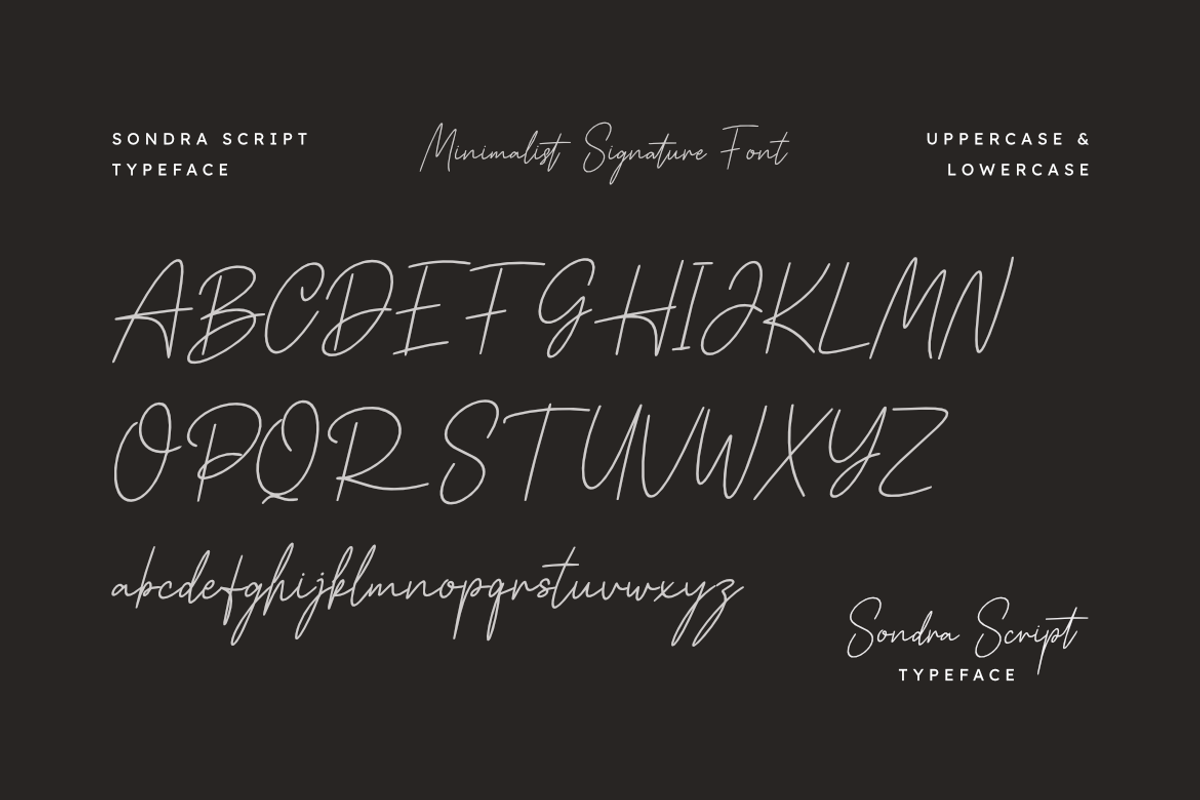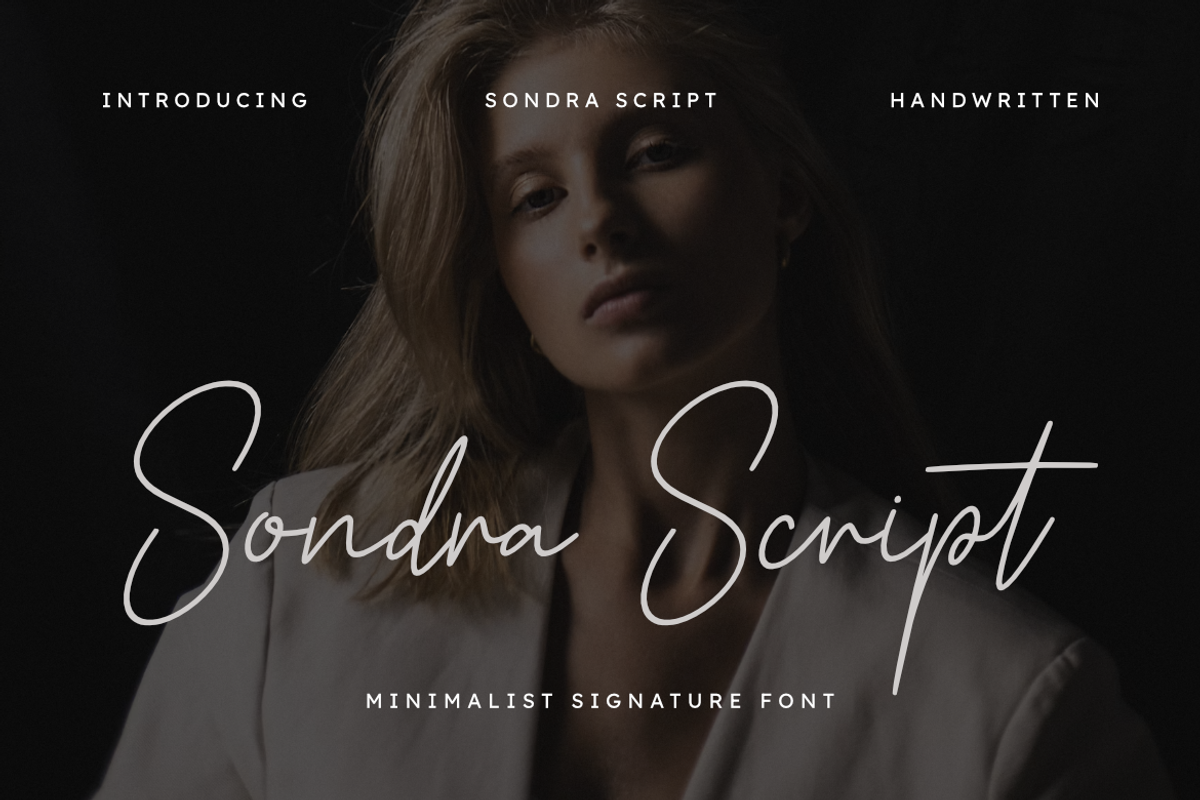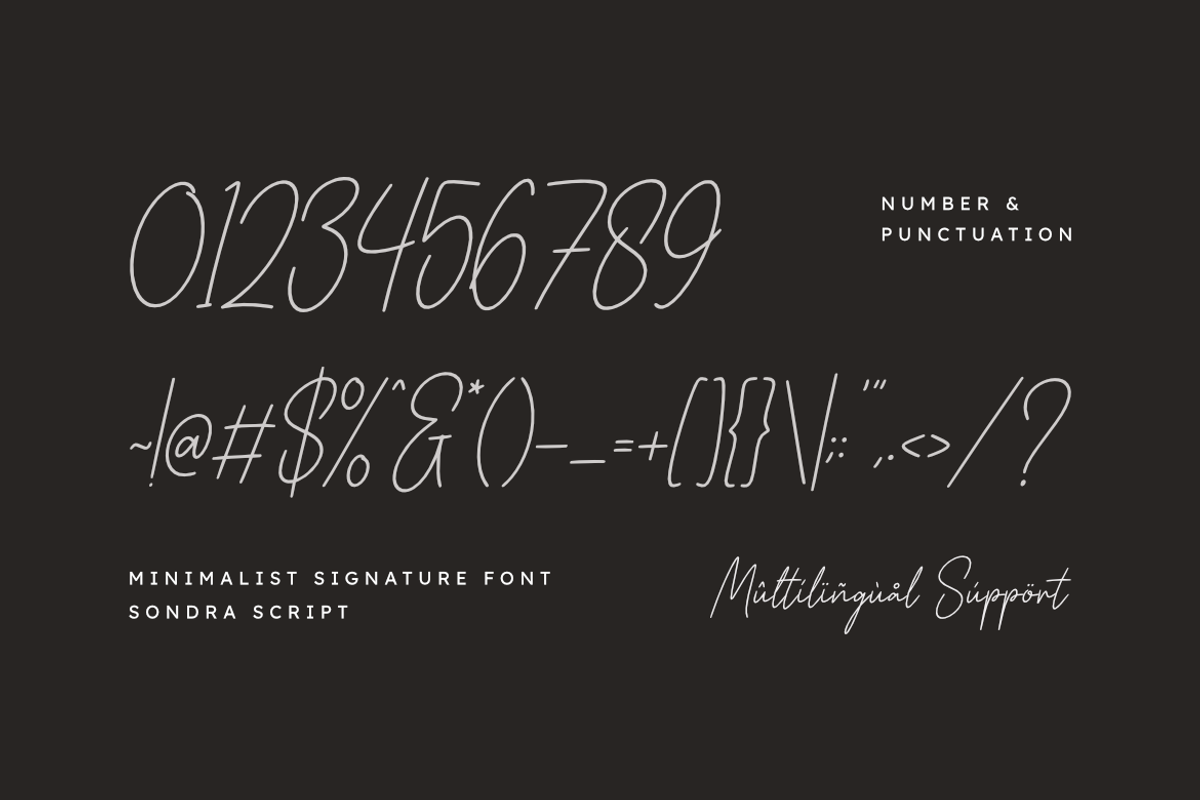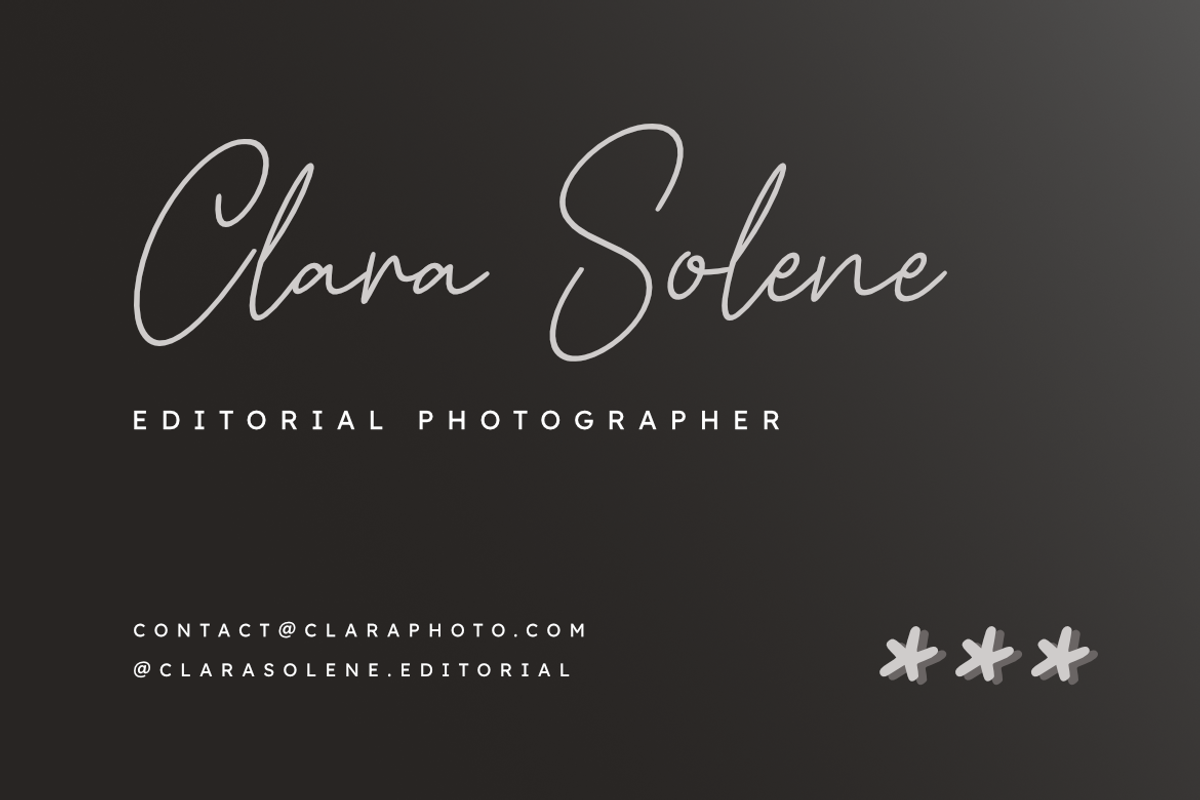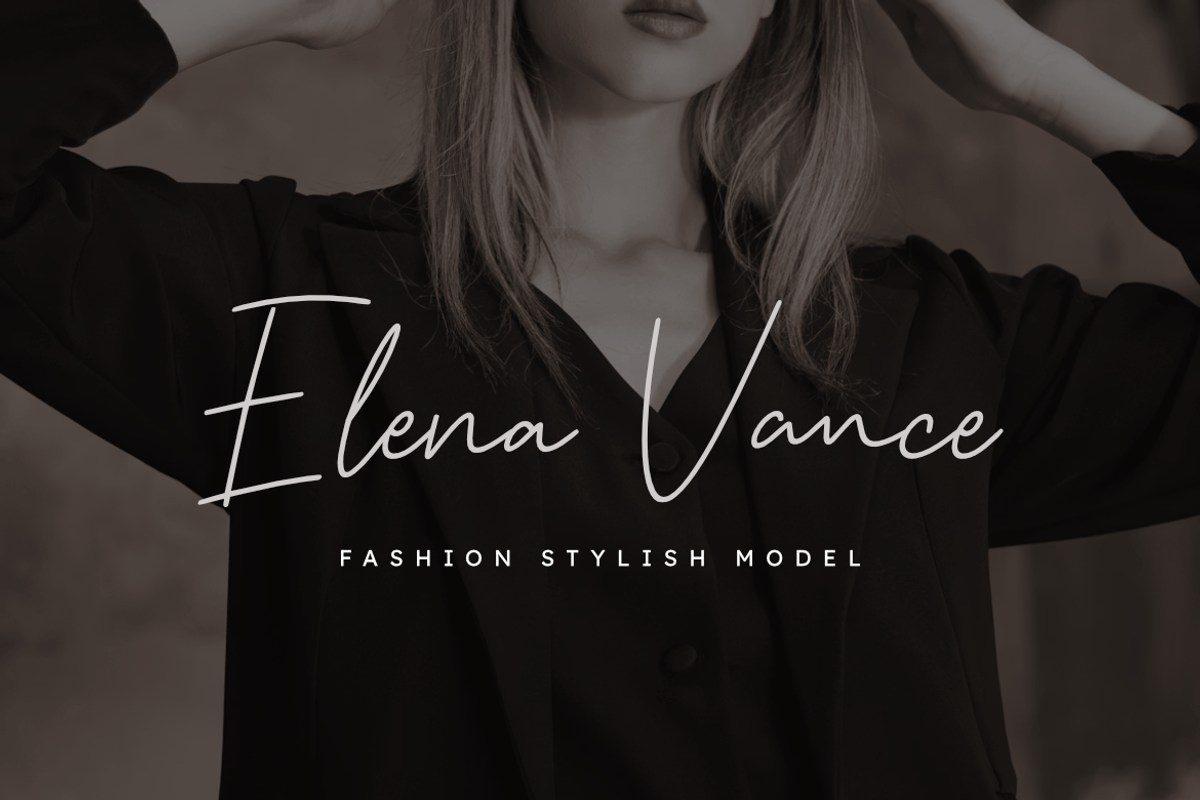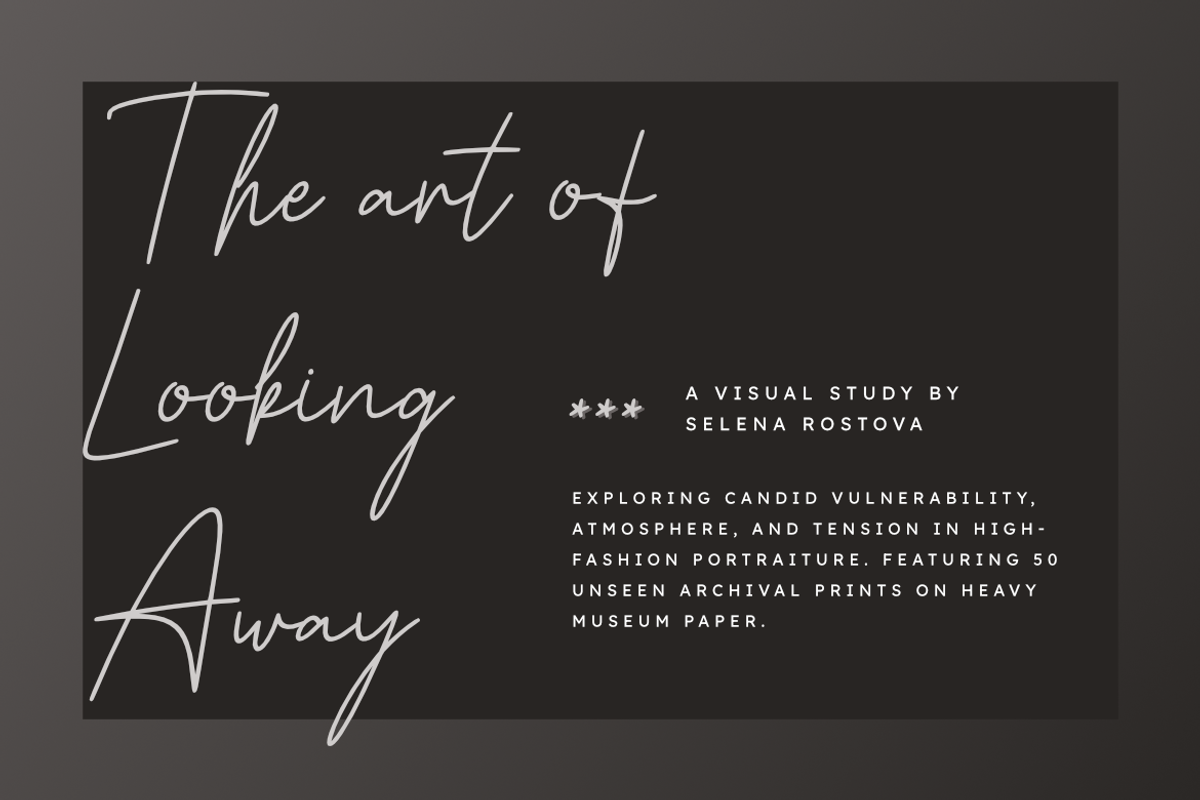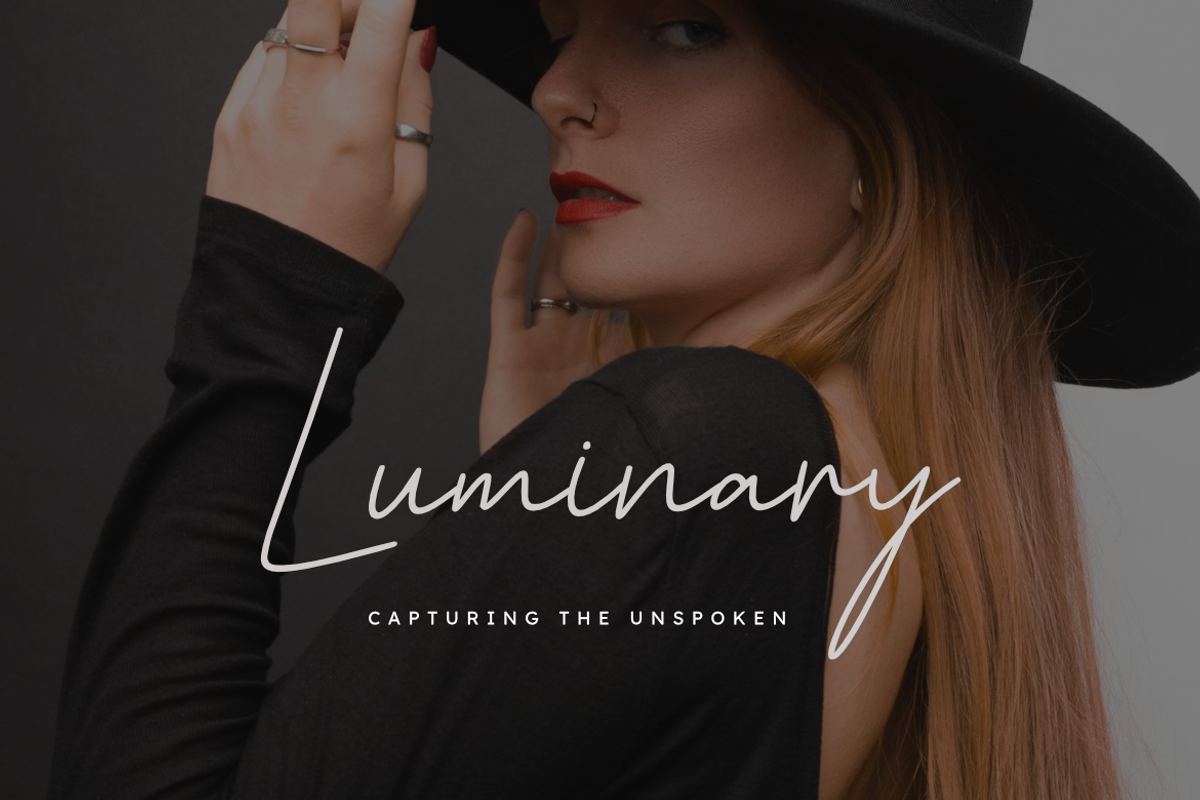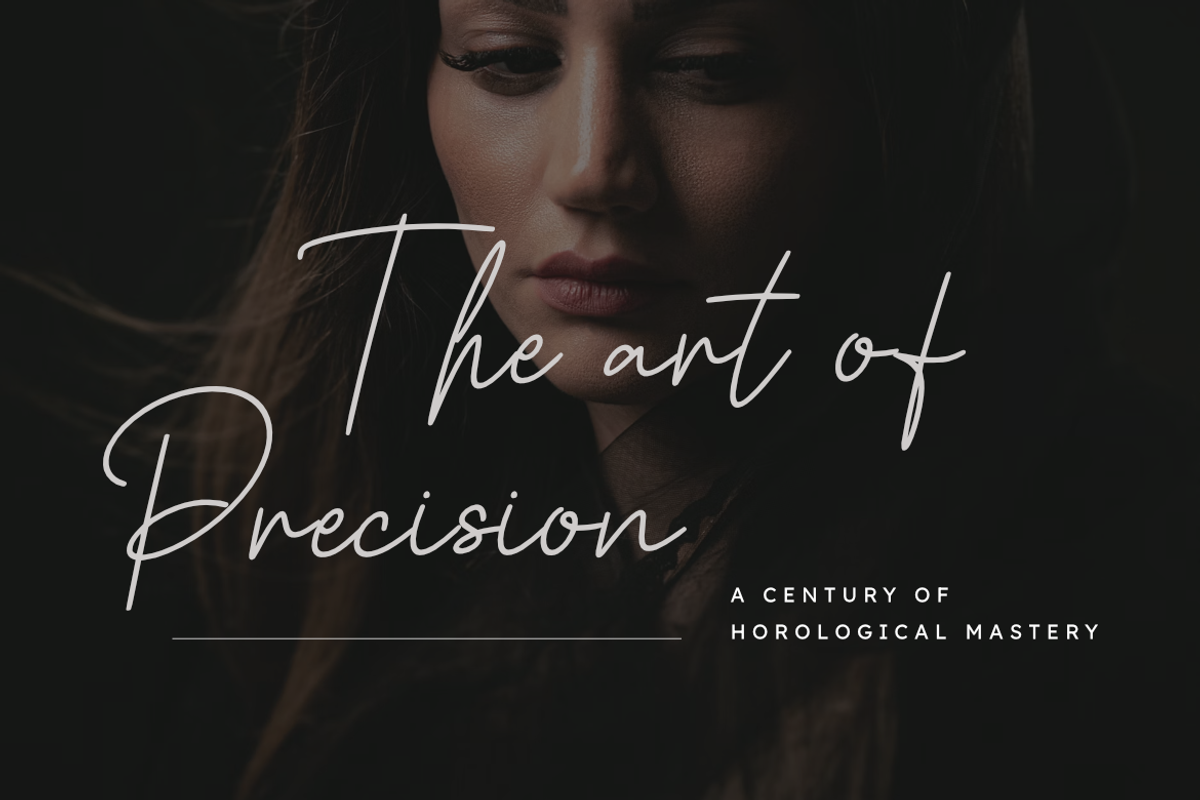
Sondra Script | Signature Font
Sondra Script | Minimalist Signature Font
Elevate your branding and design projects with Sondra Script, a sophisticated handwriting typeface meticulously crafted for elegance and personal touch. Blending authentic hand-drawn strokes with minimalist aesthetic balance, Sondra Script provides a chic, high-end edge to your visual identity.
Whether you are building a brand for a beauty salon, designing romantic wedding invitations, or creating polished photography watermarks and promotional materials, this font delivers a graceful, professional finish. Its organic flow and signature silhouettes ensure that your message commands attention in both digital and print environments.
Perfect for high-impact signatures, wedding stationery, and luxury branding.